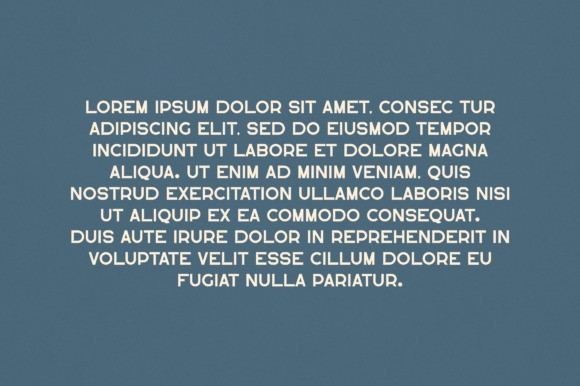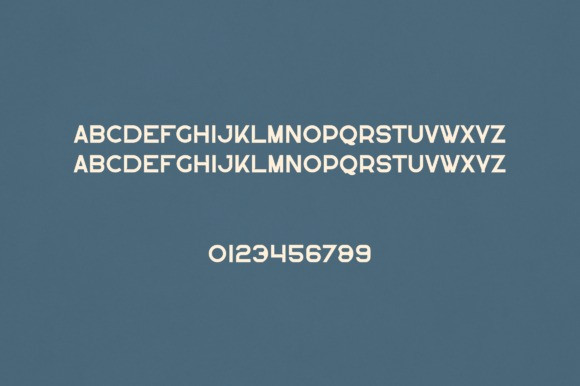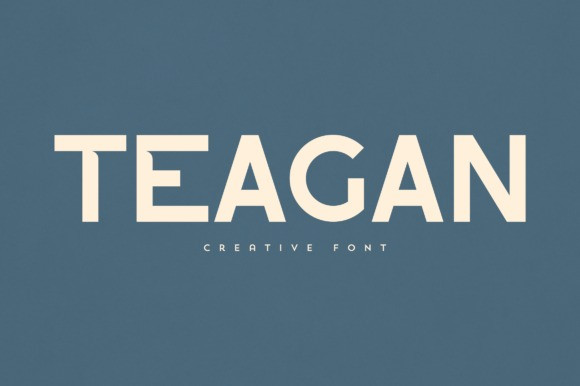
Teagan Font
Teagan Font is an elegant and versatile sans serif font that will make your typography truly unique! It will enchant every logo, branding, headline, or plain text!